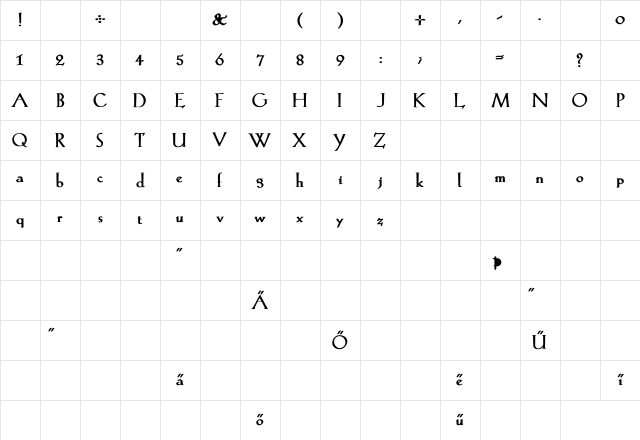
KochRoman Bold
Design Context for KochRoman
KochRoman is a composed and adaptable typeface that performs quietly and consistently across a wide range of design contexts. Its bold stroke weight gives it real presence on the page.